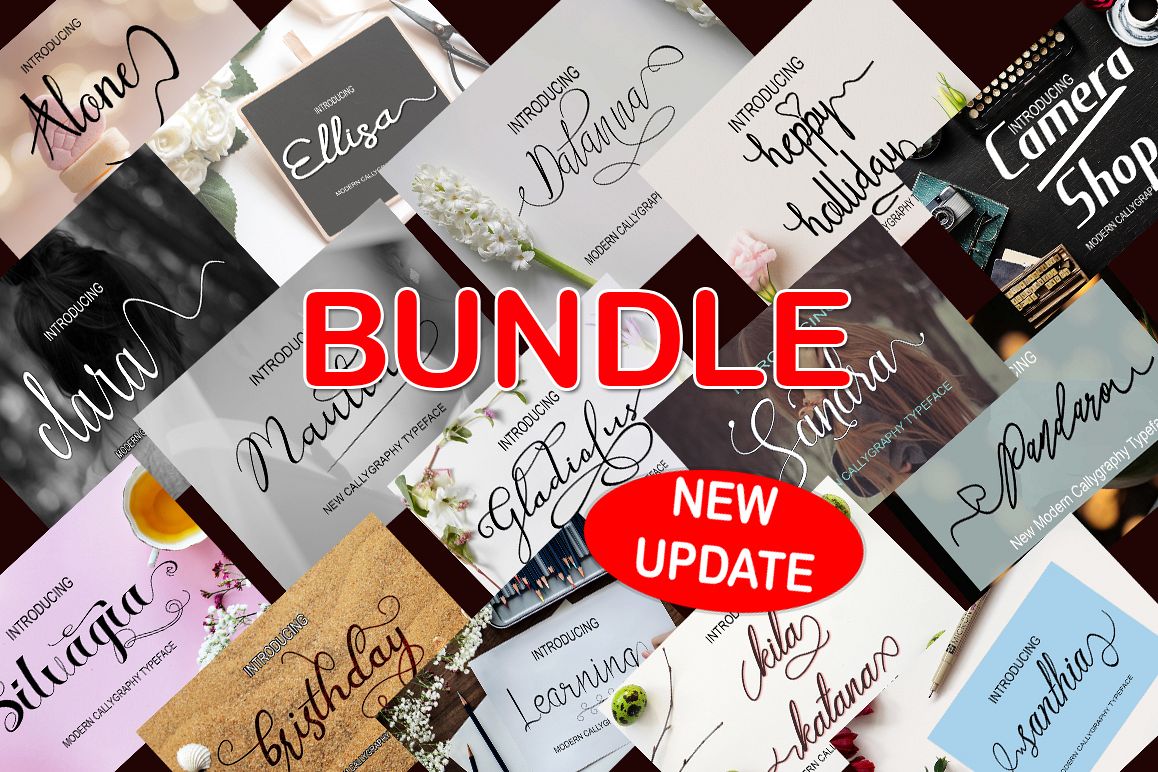
This package contains 15 Font Scripts. Includes some best-selling fonts. Silvagia Scripts, Holliday Scripts, Clarar Scripts, Alone Scripts, Ellisa Scripts, Datanna Scripts, Etc. with hundreds of glyphs, including alternates, ligatures, swashes, contextual alternatives and international language support. It can be accessed by using OpenType smart programs like Adobe Illustrator, Adobe InDesign, CorelDraw X6-X7, Microsoft Word.